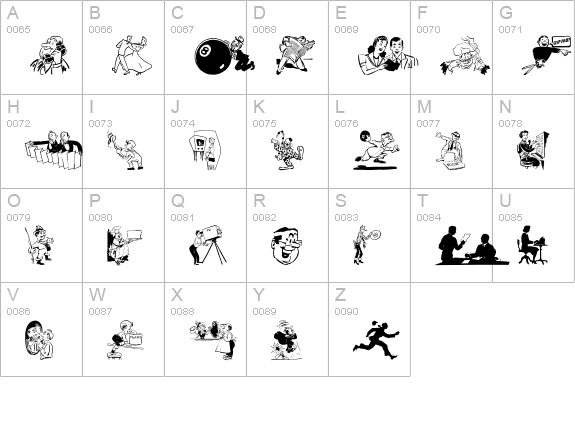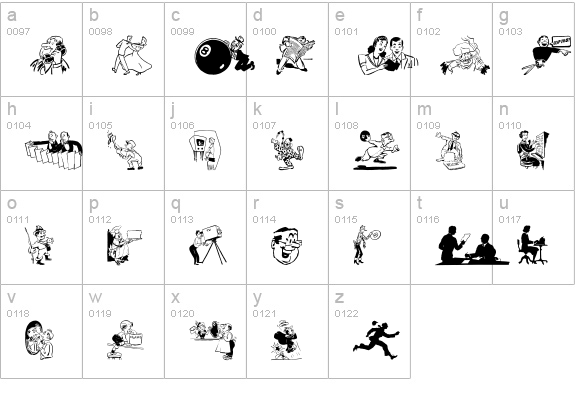
Cobb Shinn Stock Cuts IV Font Details
Cobb Shinn Stock Cuts IV font is a unique and eye-catching typeface that exudes a sense of creativity and originality. This font features intricate details and sharp edges, giving it a modern and edgy look that is sure to make your designs stand out. Perfect for logos, branding, posters, and more, Cobb Shinn Stock Cuts IV font is versatile and can be used in a variety of design projects. The best part? This stunning font is completely free to download at FontsMarket.com. Whether you're a professional designer looking to add a fresh touch to your projects or a hobbyist looking to explore new fonts, Cobb Shinn Stock Cuts IV font is a must-have in your font collection. Don't miss out on this amazing opportunity to enhance your designs with this stylish and unique typeface - download it for free today!